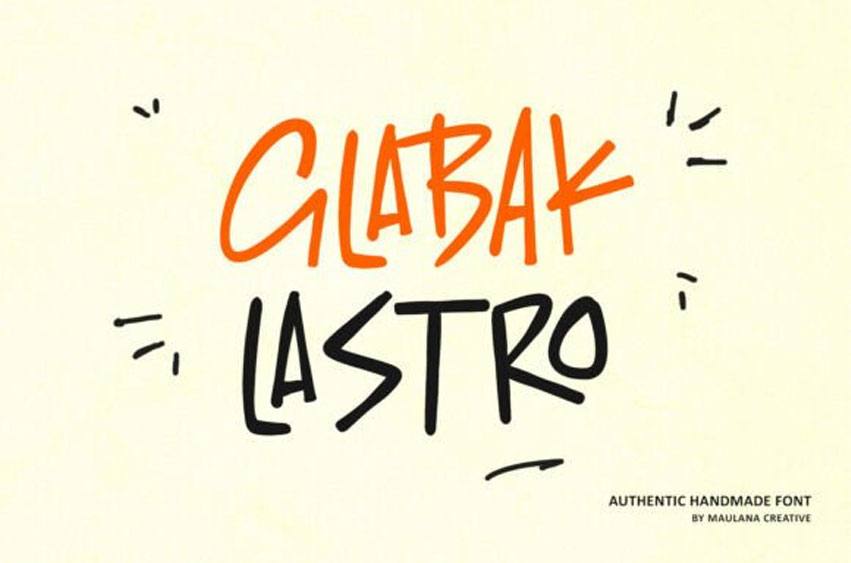
Glabak Lastro Font
Glabak Lastro Font is an authentic, handmade font bursting with playful, casual energy. This bold, all-caps typeface captures the raw, imperfect charm of true hand-drawn lettering. With its slightly irregular baseline and expressive brush-like strokes, Glabak Lastro brings an organic, friendly, and dynamic feel to any design. It’s ideal for projects that call for a touch of authenticity—steering away from sleek perfection and embracing handcrafted personality.
Featuring a natural, handmade texture, this font feels warm and grounded—never digital or sterile. Its all-caps format is perfect for headlines, titles, and short statements, while built-in ligatures prevent repetitive letterforms, enhancing its realistic handwritten style.
Whether you’re designing quotes, social media graphics, website headers, children’s content, casual branding, comic-style lettering, or anything that needs a spontaneous, joyful, or indie aesthetic—Glabak Lastro is ready to bring your vision to life.